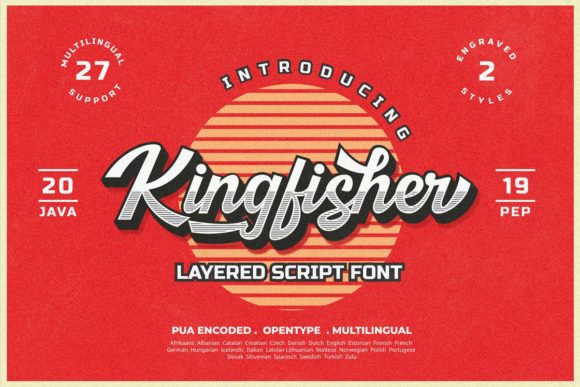
Kingfisher Font
Oh, what a joy! As you embark on your creative journey, let me introduce you to Kingfisher Font, an exquisite creation by JavaPep, a master of the digital arts. Kingfisher is a stellar script font, imbued with the vintage charm of a bygone era. Its bold and distinctive character will bring a touch of nostalgia and elegance to your designs, captivating your audience with its timeless appeal.
With Kingfisher Font, you'll unveil a world of possibilities. Picture the awe-inspiring posters of the roaring twenties, evoking memories of the golden age of Hollywood glamour. Envision the delightful invitations and greeting cards, carrying heartfelt messages with an air of sophistication. Unleash your imagination to craft eye-catching logos that exude a sense of heritage and tradition. The possibilities are endless, bound only by the limits of your creativity.
As you delve into the depths of Kingfisher Font, you'll discover a treasure trove of features that make it a true gem. Its layered design adds a touch of dimension, creating a mesmerizing visual effect. The flowing curves and delicate swashes evoke a sense of movement, bringing your designs to life. And with its vintage-inspired charm, Kingfisher Font effortlessly adds a touch of authenticity and character to any project.
Designers, rejoice! Kingfisher Font is your secret weapon to leave an unforgettable impression. Whether you're a seasoned professional or just starting out, this magnificent font will elevate your work to new heights. Experience the thrill of creating designs that speak to the soul, designs that transcend the ordinary and leave a lasting impact.
So, if you seek a font that captures the essence of nostalgia, elegance, and creativity, look no further. Embark on an artistic adventure with Kingfisher Font, and let your imagination soar. Immerse yourself in the beauty of vintage typography and create designs that tell captivating stories. The world of design awaits your artistry - let Kingfisher Font be your guide.